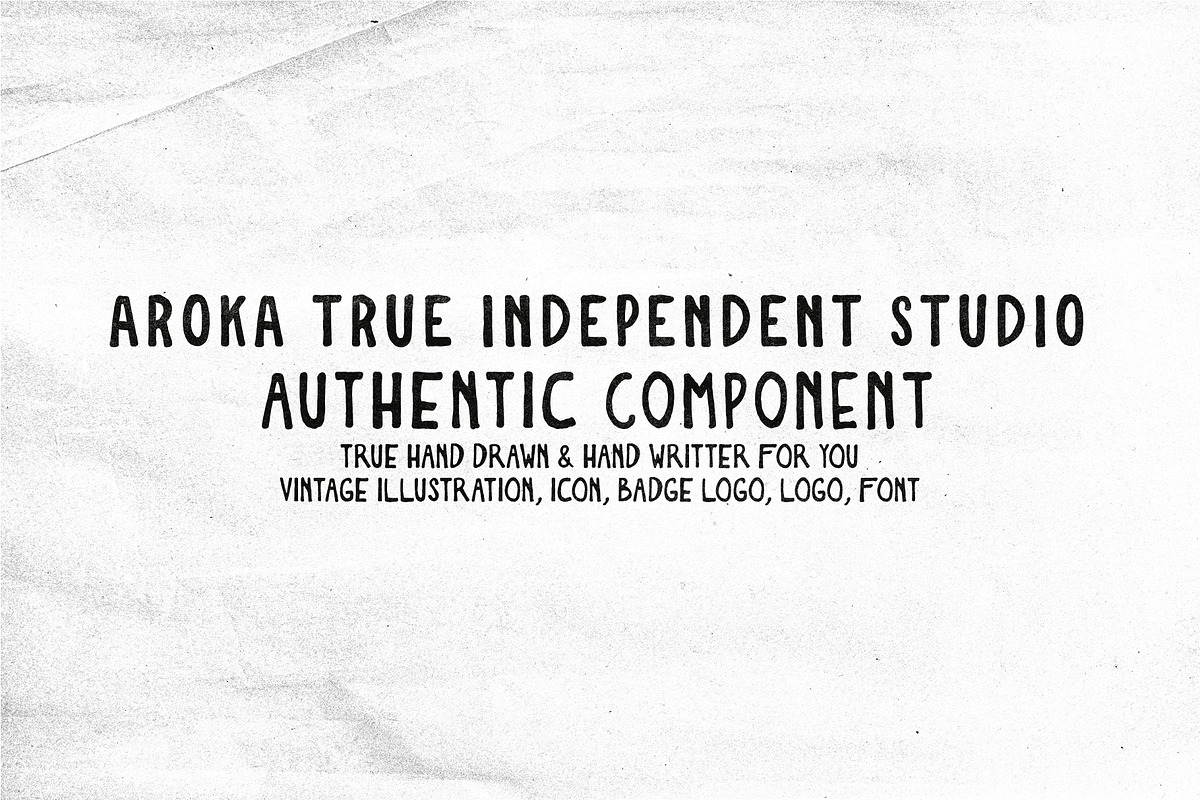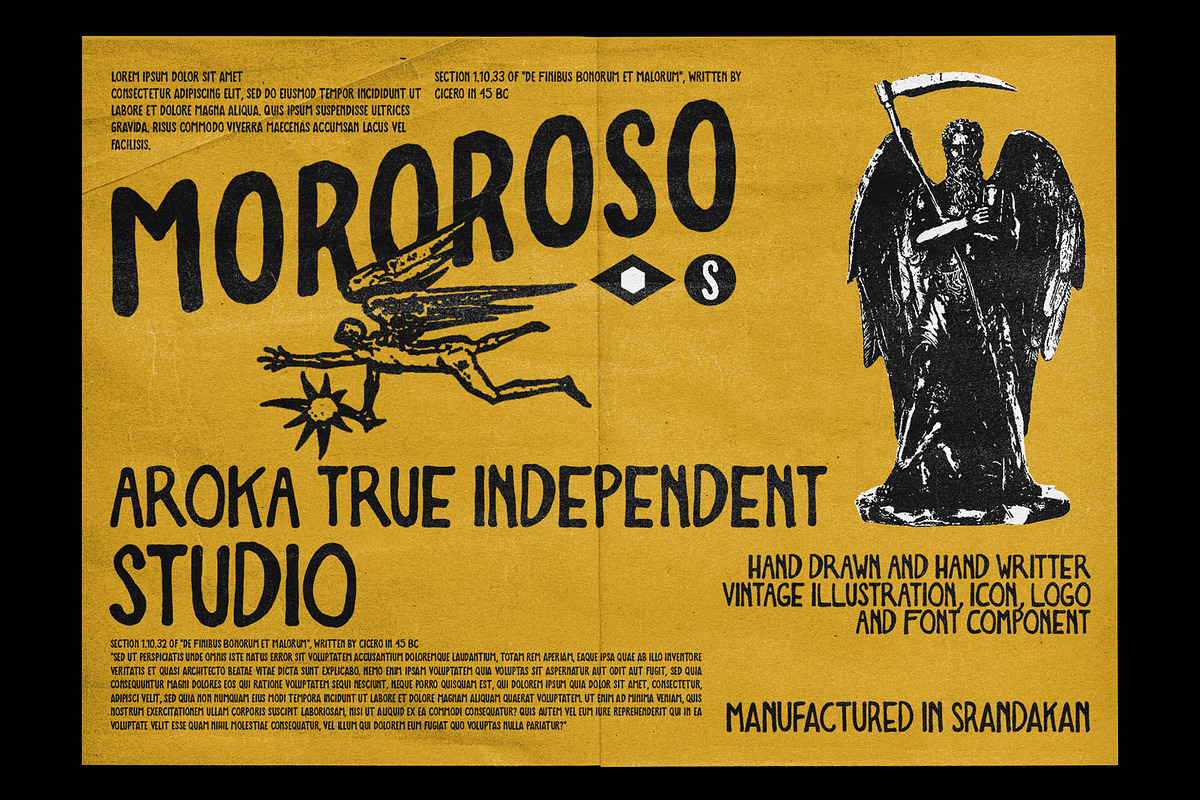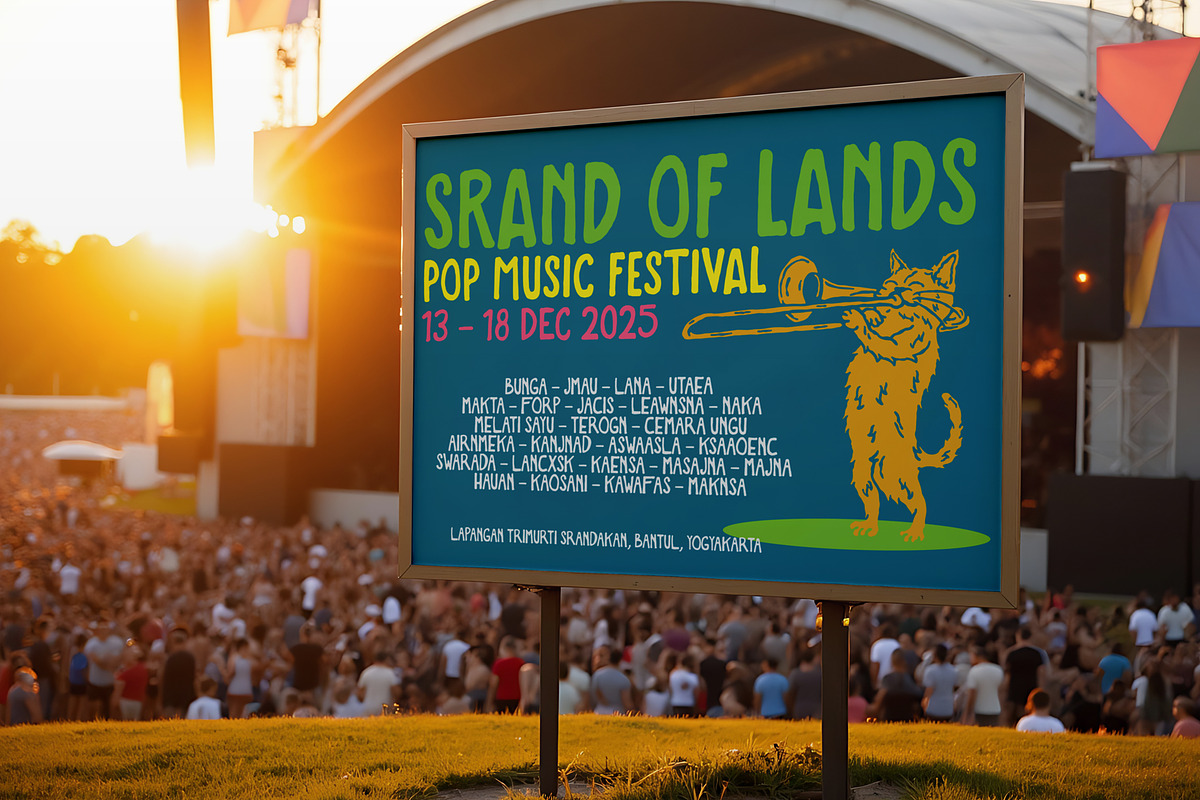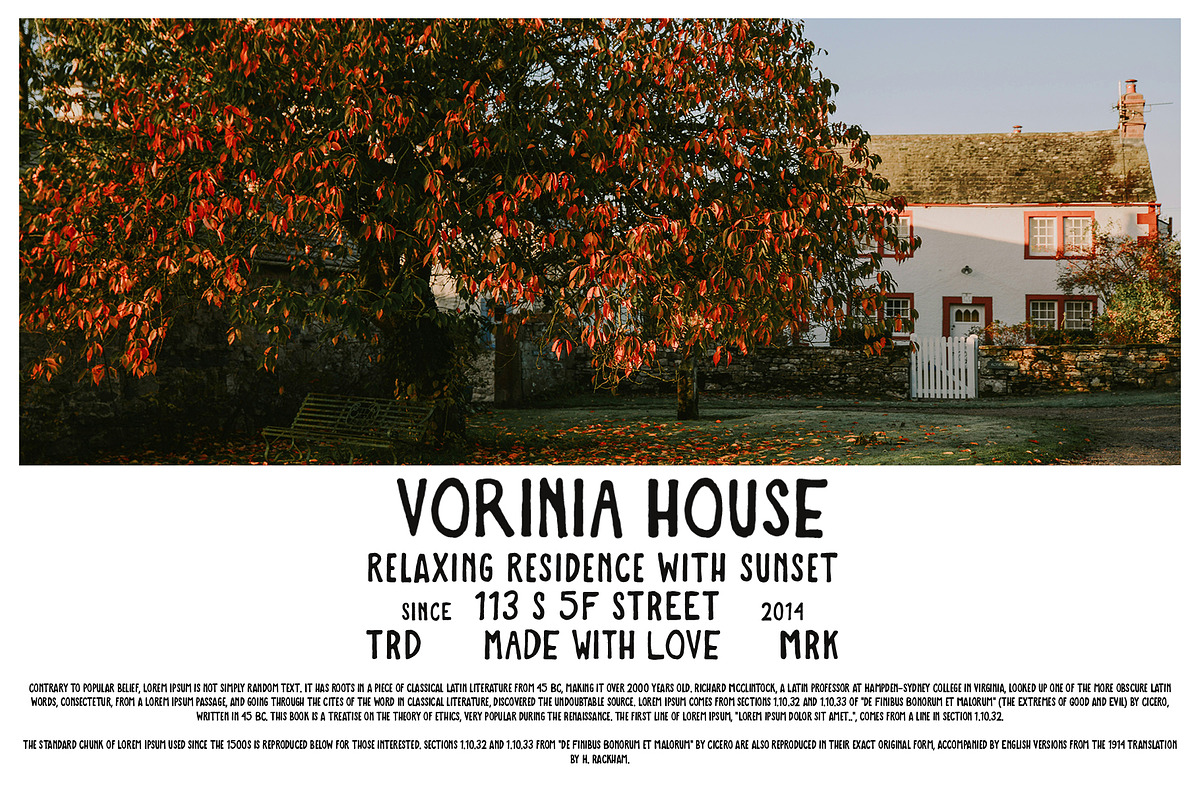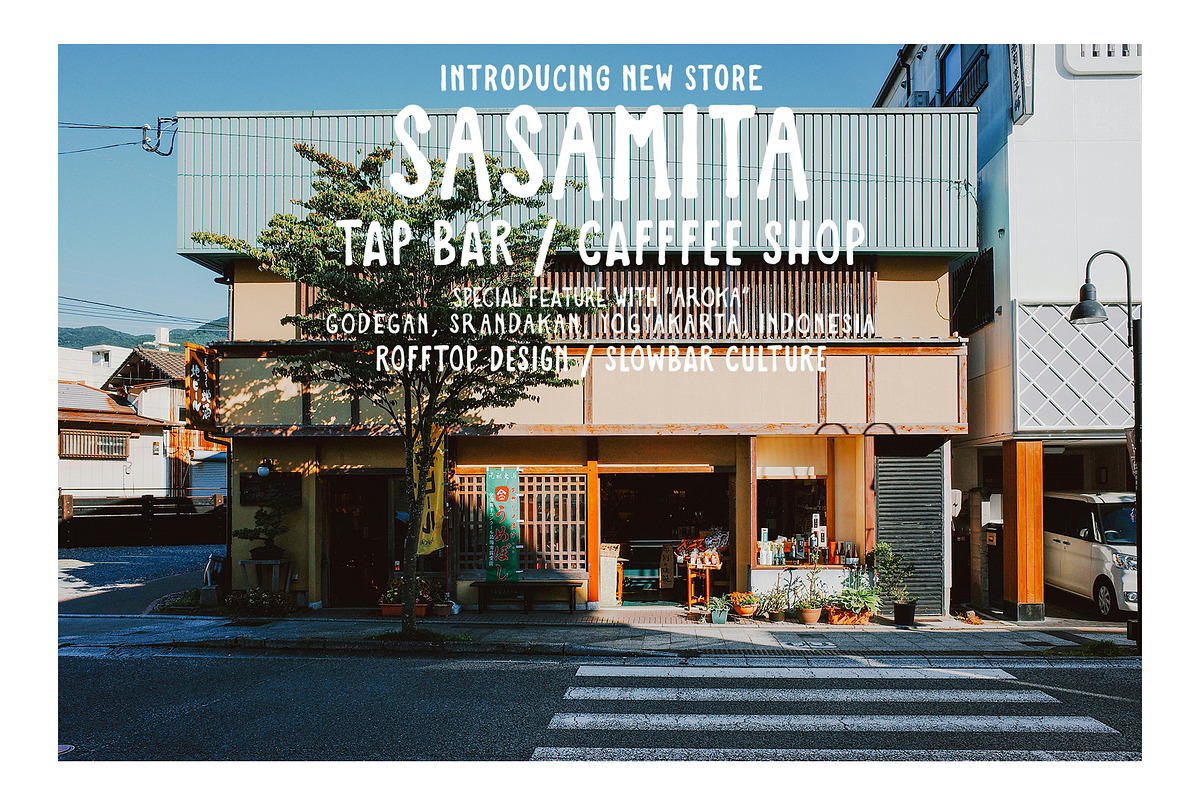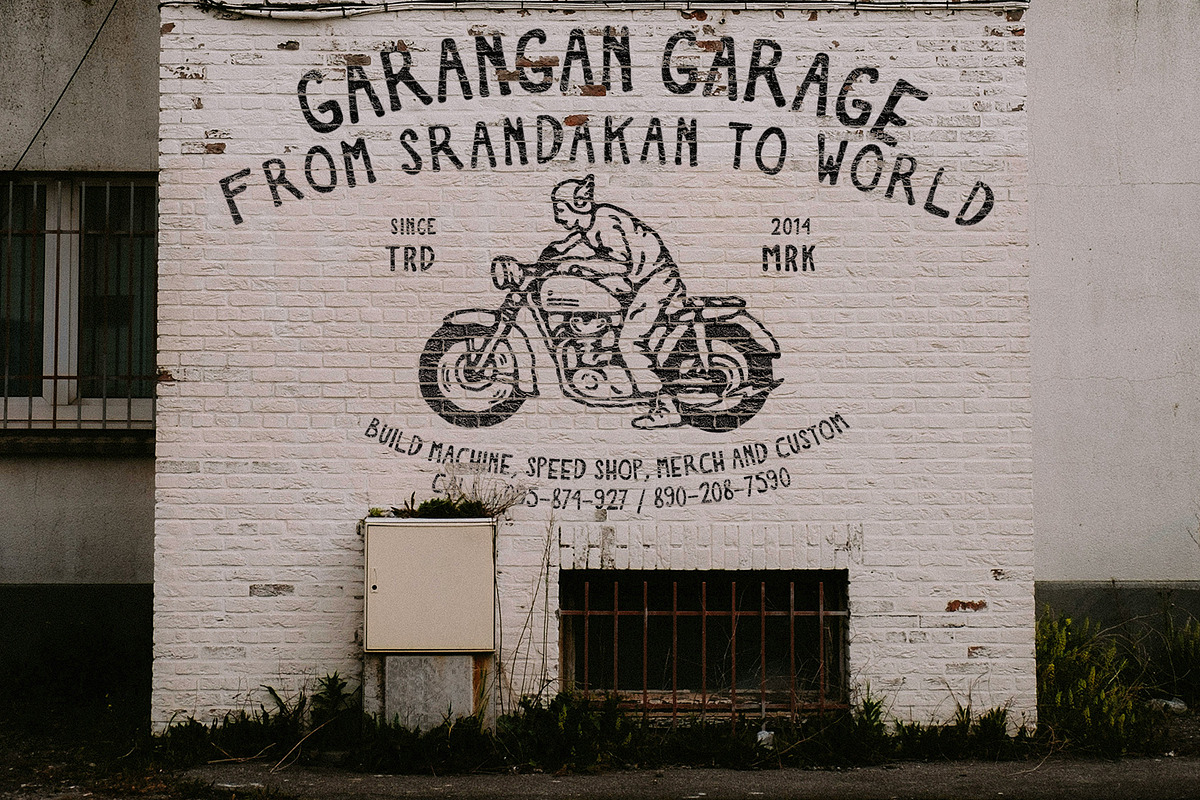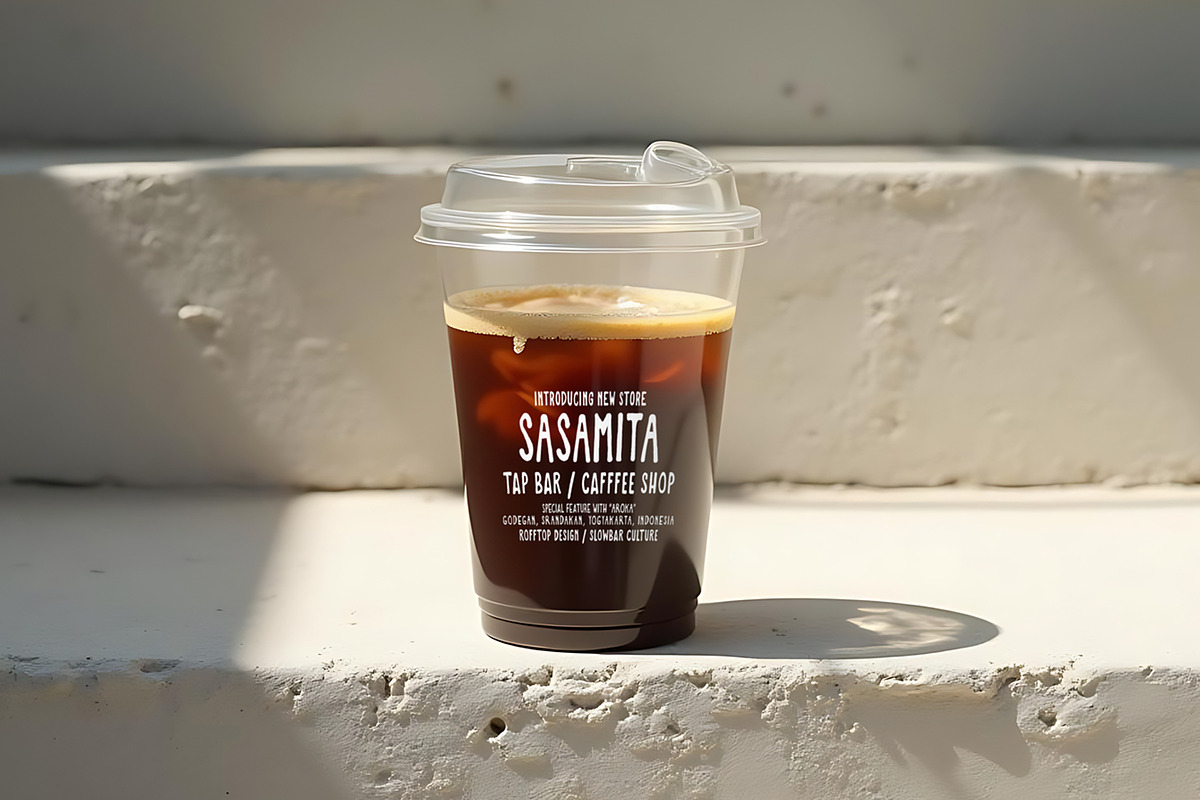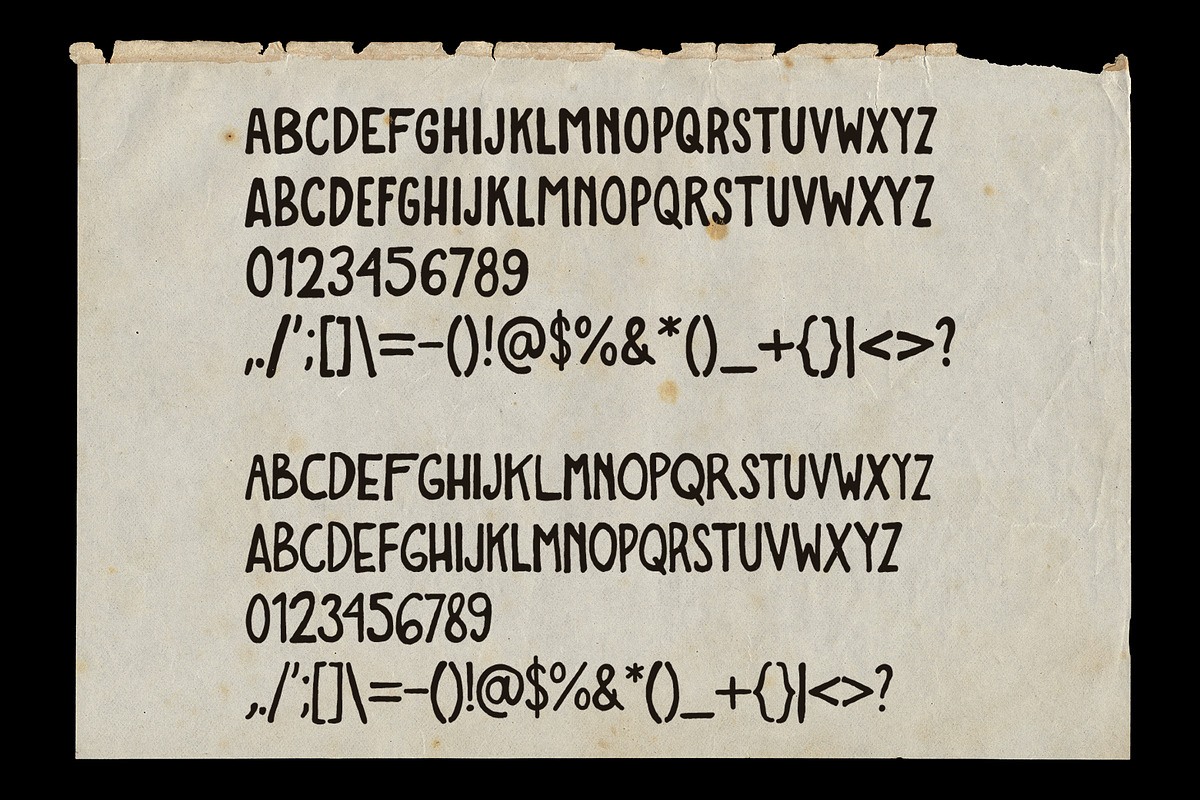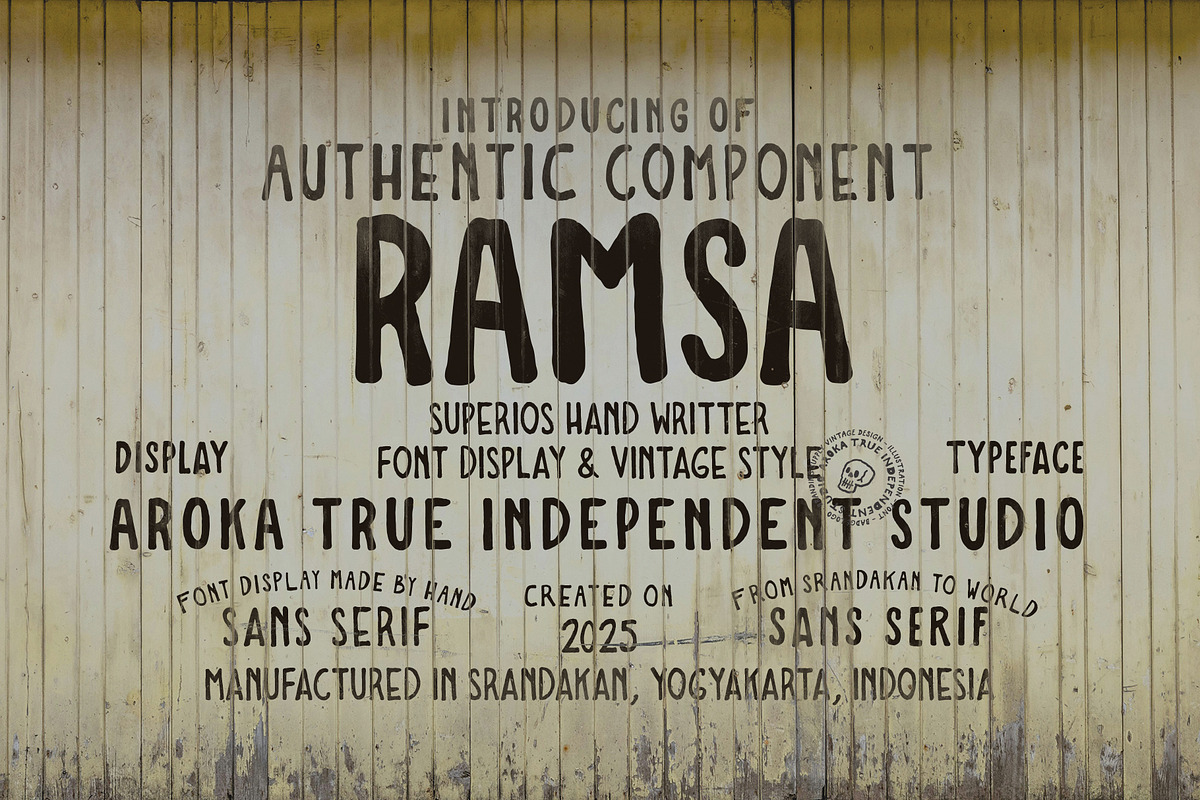
RAMSA Handwritten
Ramsa true handwritten aunthentic font display component for your element design, for dispaly, for illustration, logo and more, thank you !